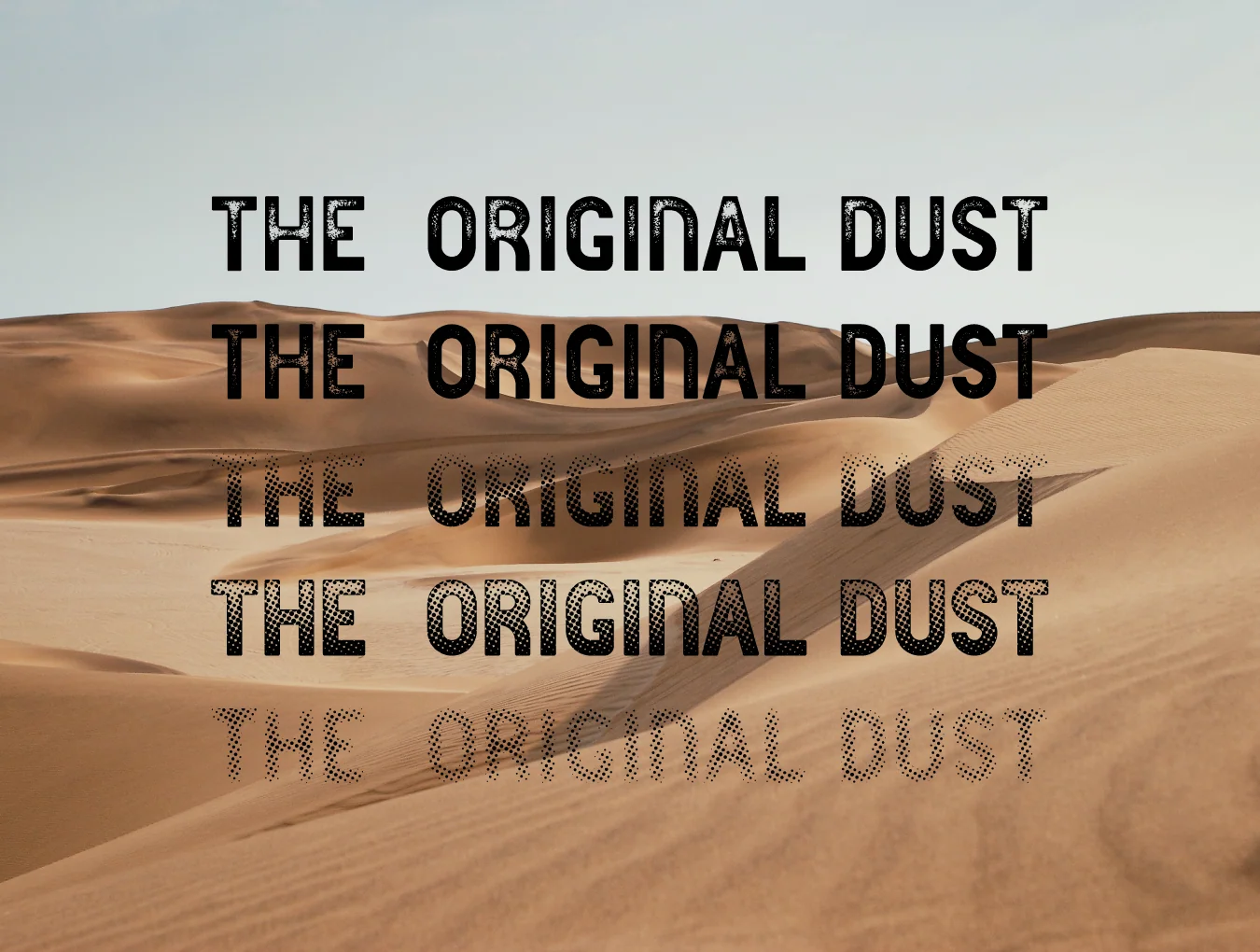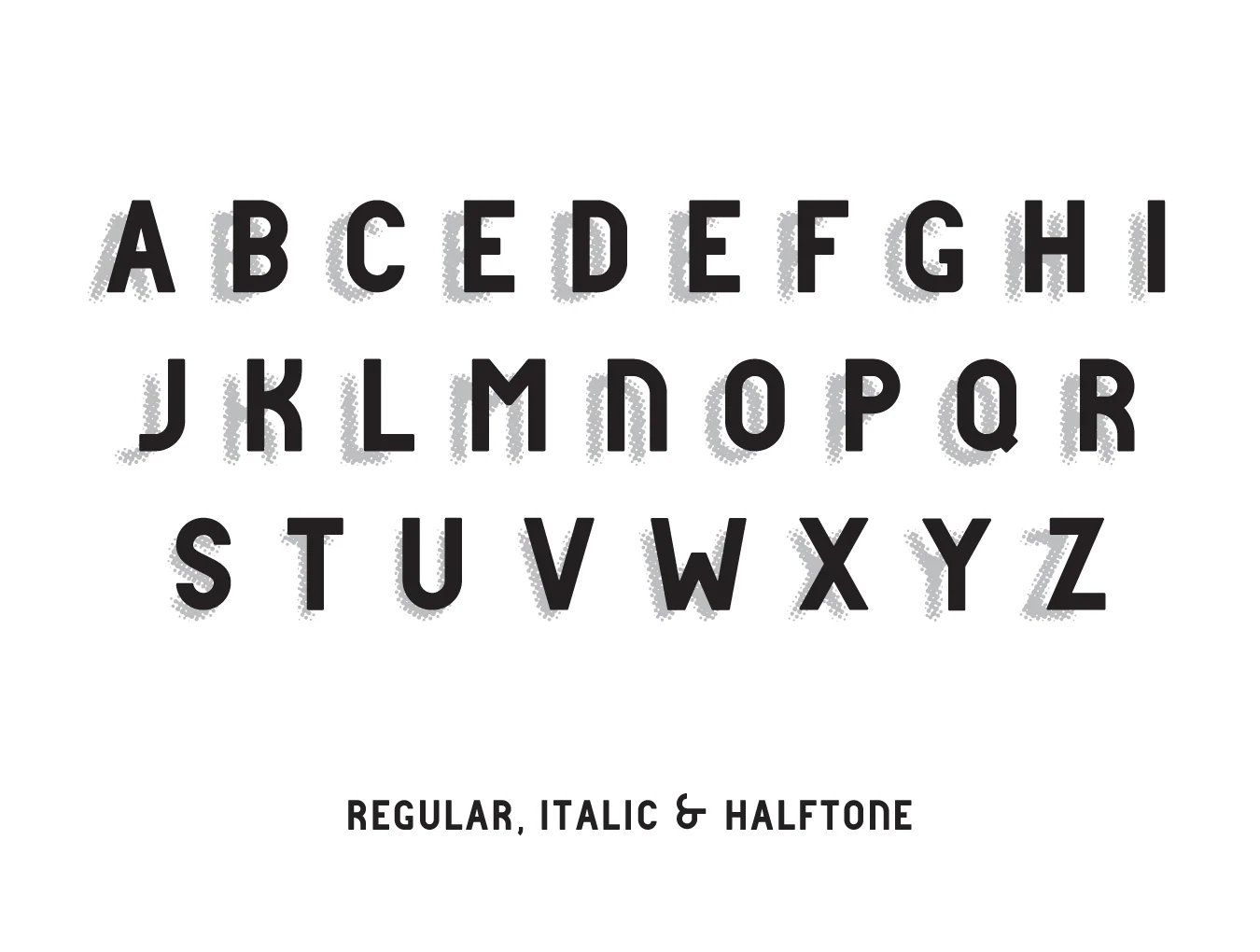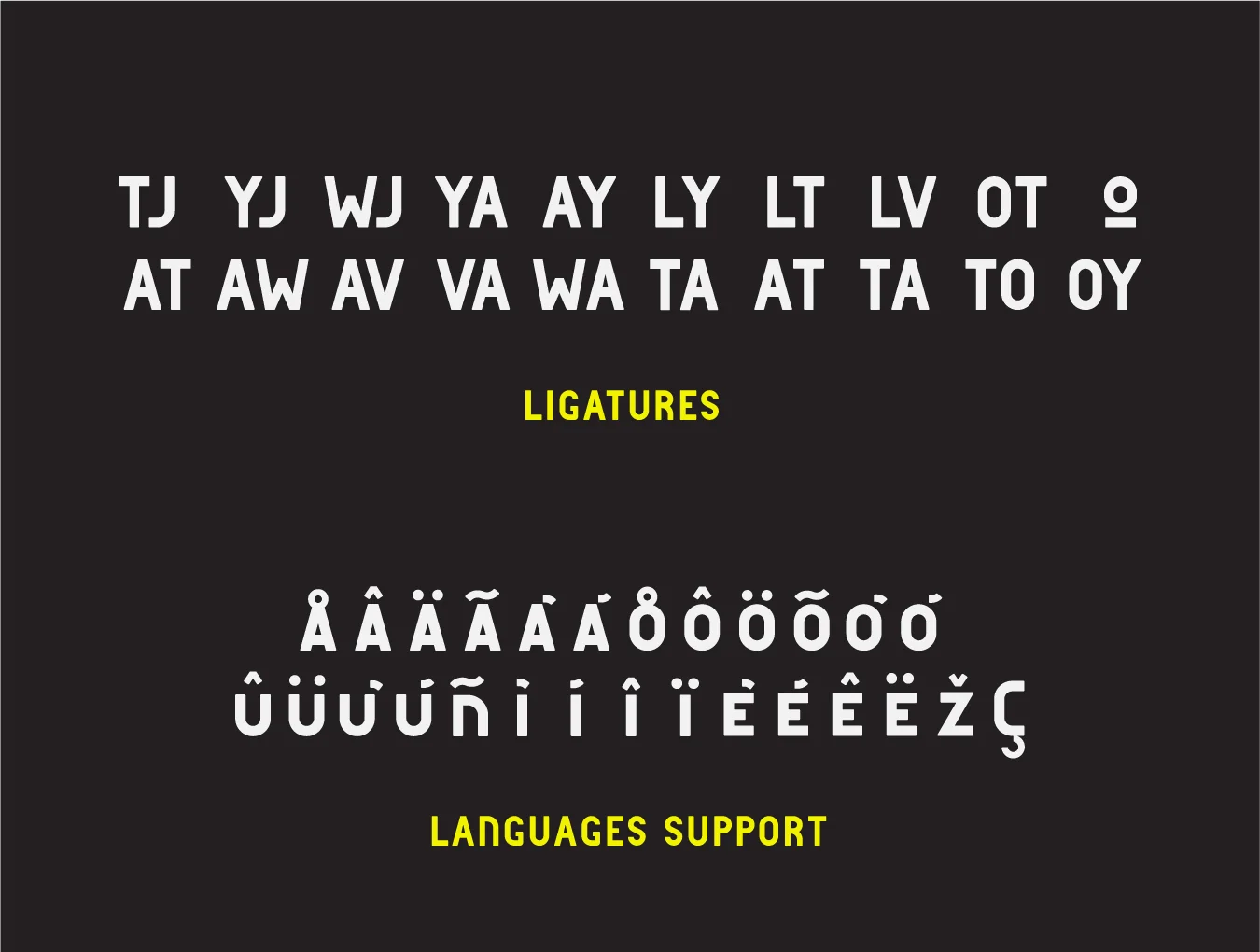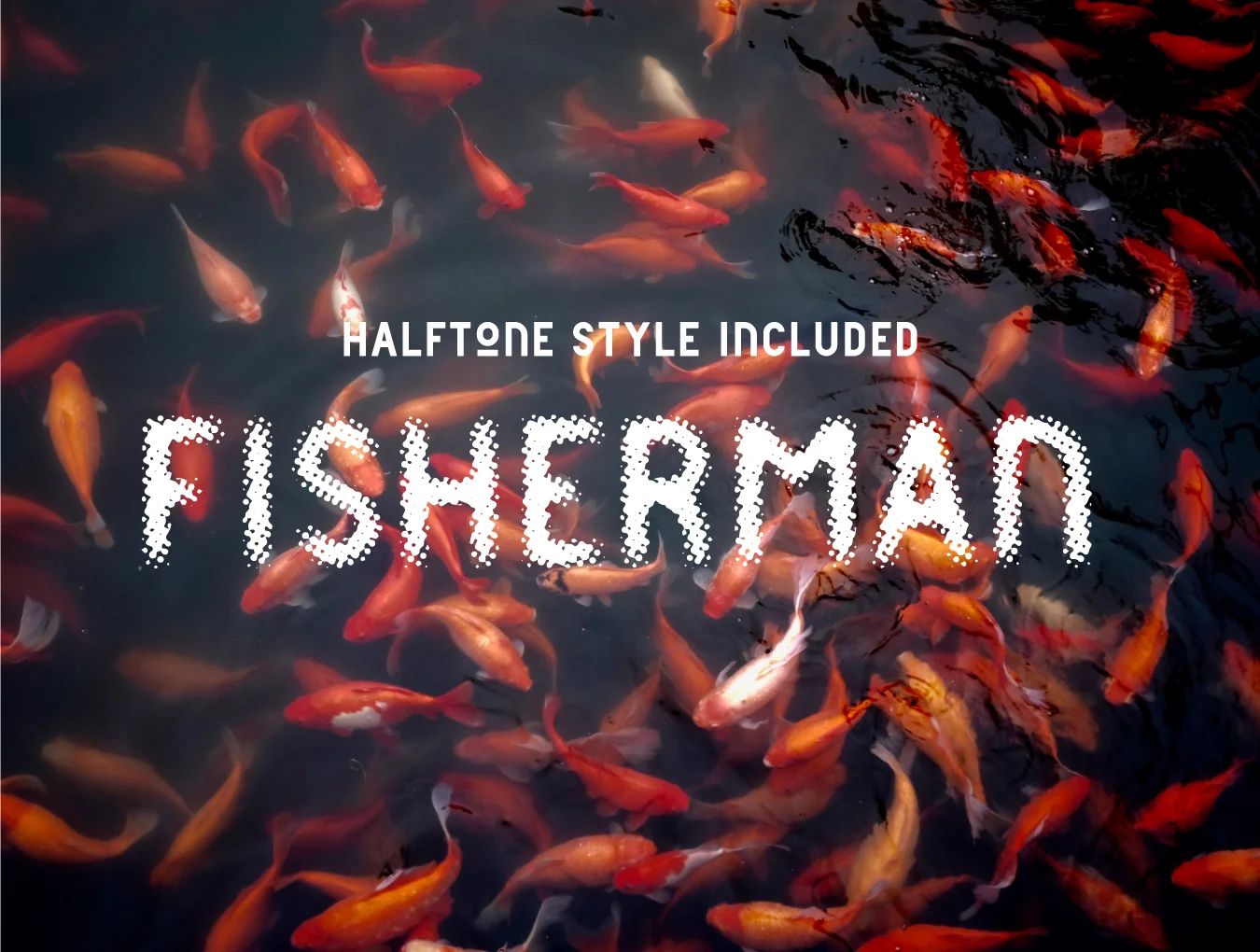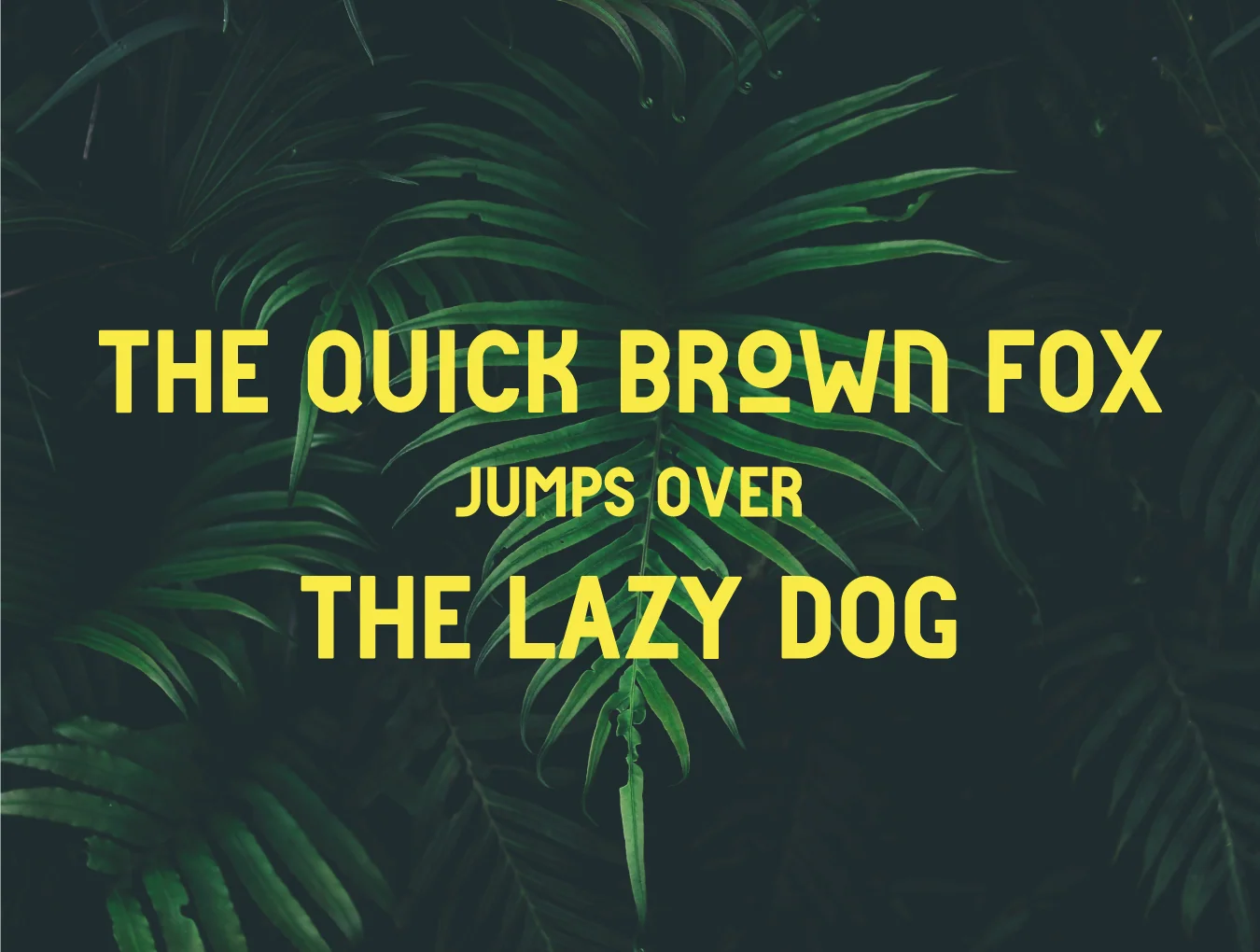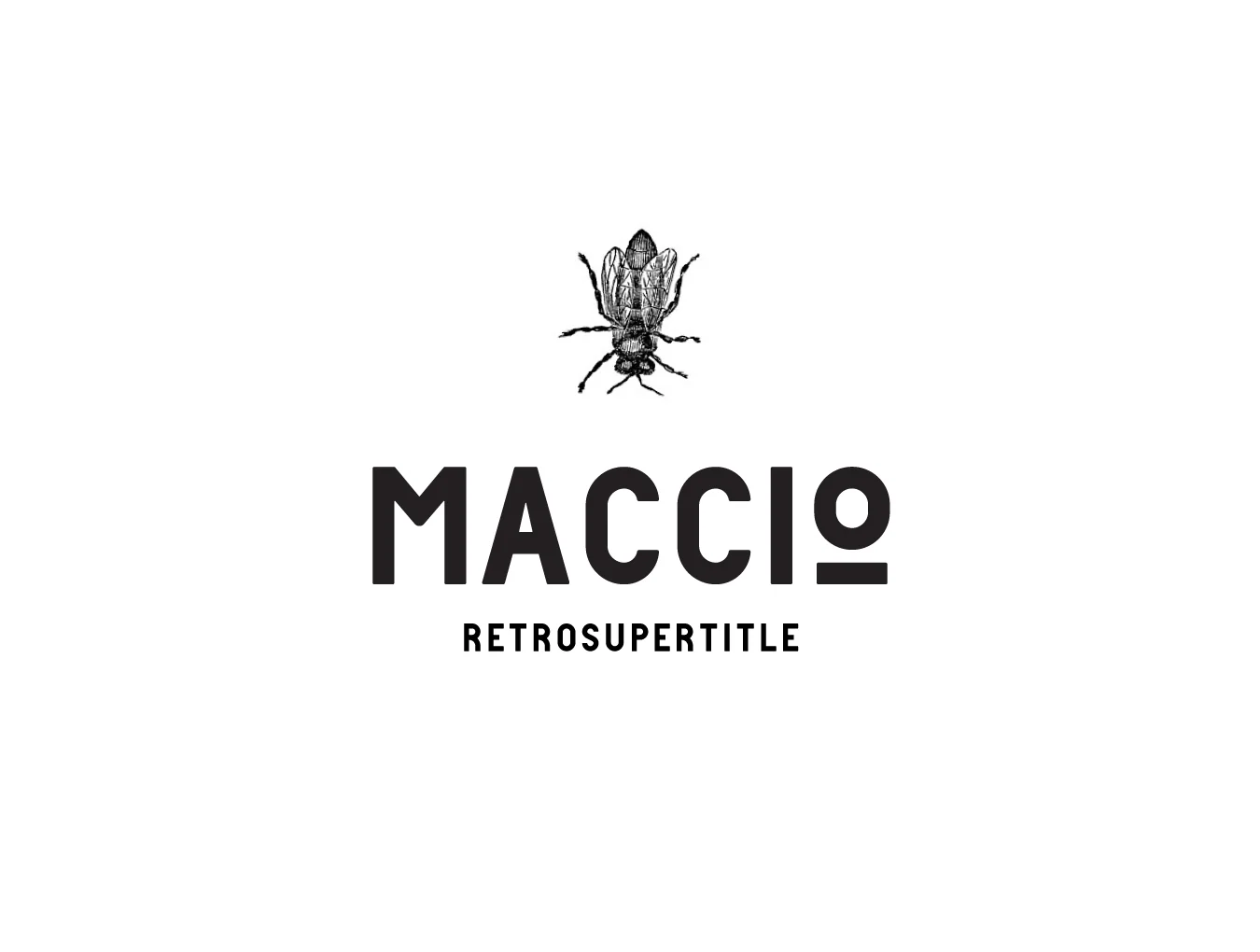
Dakar Font
Fresh Majestic solid font in uppercase
Includes 381 characters
Standard, slanted, and halftone styles
Symbols plus alternate options
Dakar is an all-caps sans serif typeface with italic and halftone options, ideal for branding. Its softened corners add clarity and impact to your designs, while wide ligatures help create balanced spacing. The ZIP also includes 4 extra Illustrator styles for editing Dakar and other artwork. Photo credits: Keith Hardy, Larm Rmah, Jeremy Cai, and Unsplash.